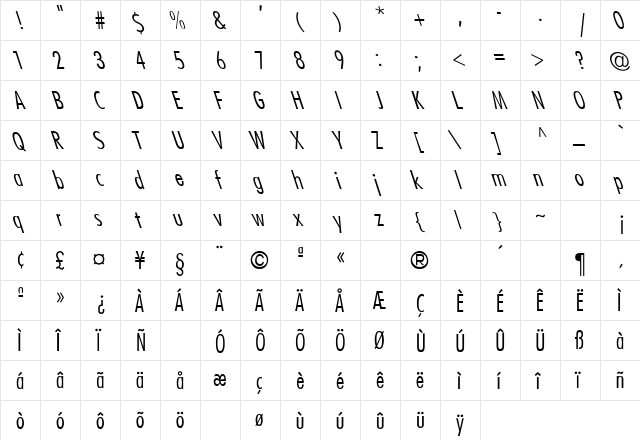
Futura-Condensed Light-Lefty Regular Font Preview
Design Context for Futura-Condensed Light-Lefty Typeface
Futura-Condensed Light-Lefty has a distinctly futuristic character, with geometric precision and clean angles that feel at home in technology, gaming, and sci-fi contexts. The delicate stroke weight brings airiness and refinement to layouts. Its narrow stance lets it pack a punch even in space-constrained designs.
Pro Tip: Try Futura-Condensed Light-Lefty with generous letter-spacing in UI labels and navigation — the geometric forms benefit from room to breathe.